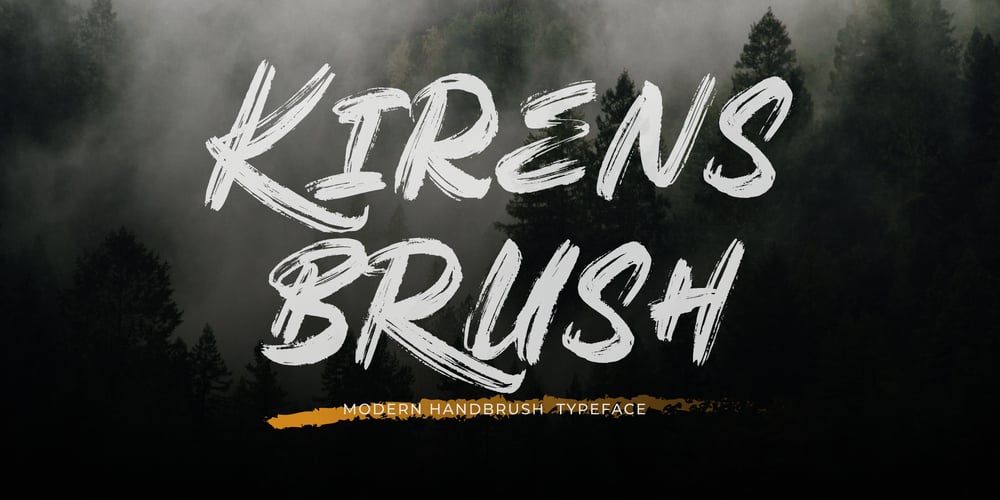
Kirens Brush Font Family was designed by Muhammad Muammar and published by limitype. Kirens Brush contains 1 styles and family package options. Kirens is a brush font made in a modern, bold, classic and textured handwriting style, suitable for all your design needs that require display typeface to make your design appear bold and stylish.Kirens brush is equipped with:- Allcaps Font- Alternate- Numbers- Symbols- ligatures- Multilingual